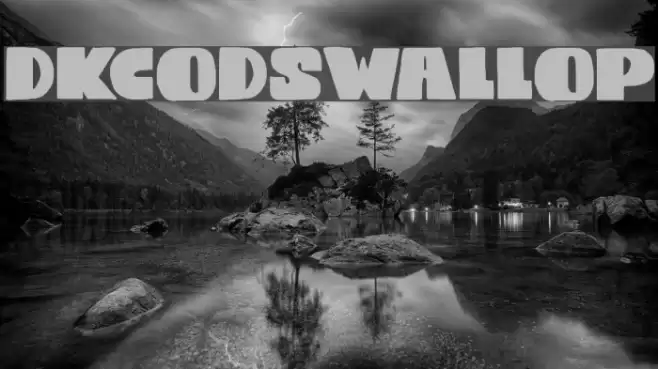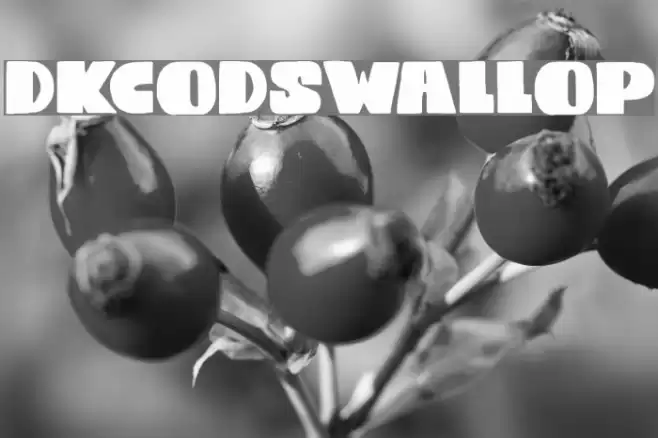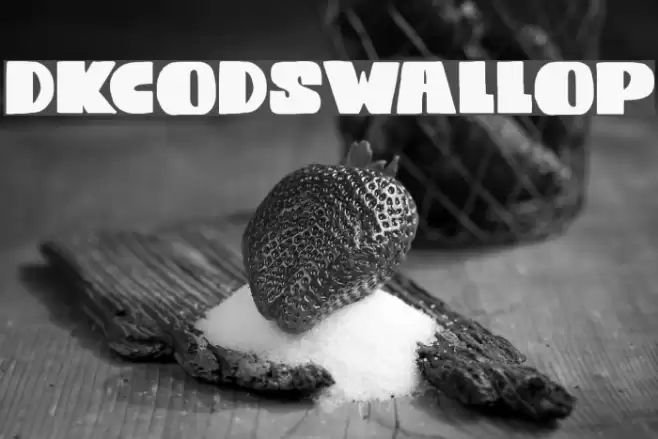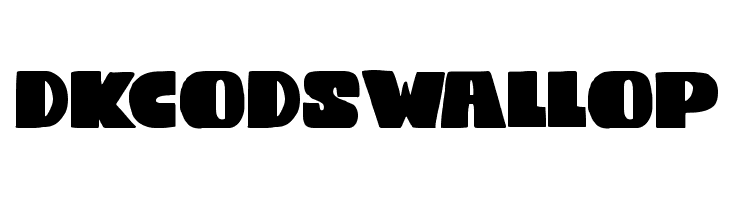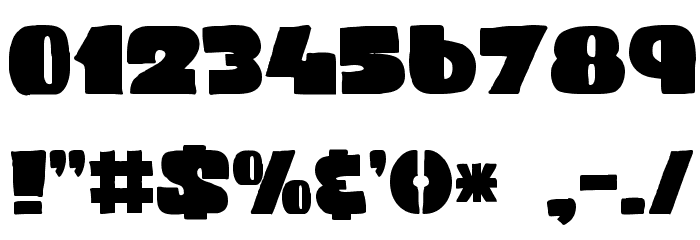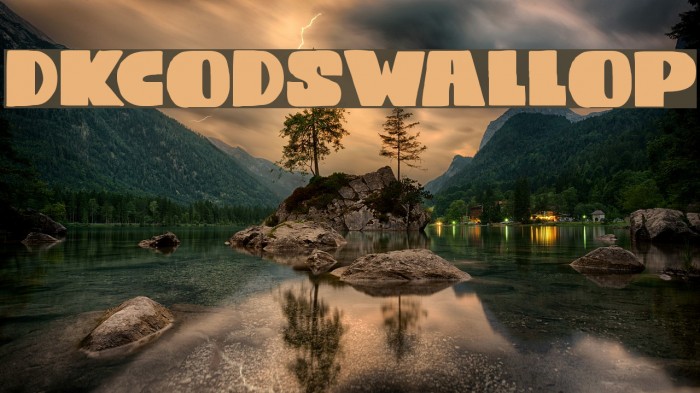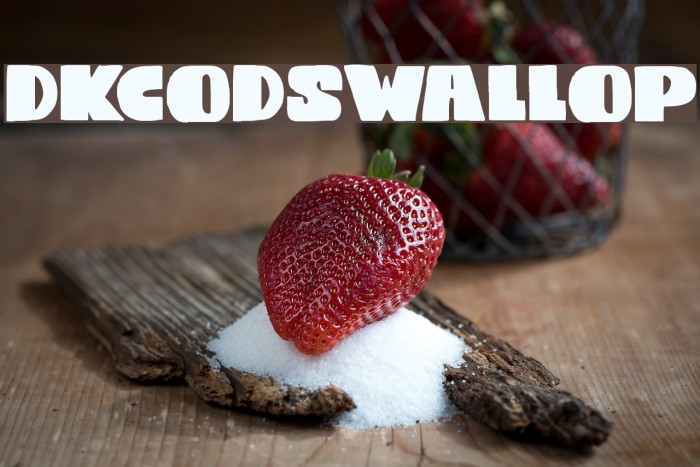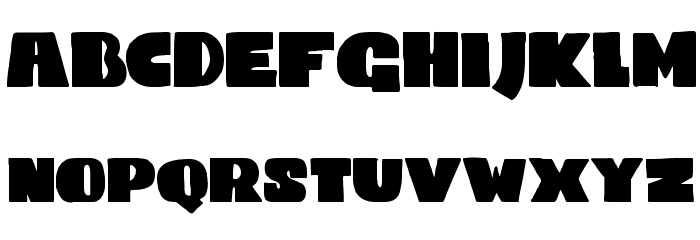
DKCodswallop Font
DKCodswallop Description
This font features a bold and playful design with a chunky, block-like appearance. The characters are heavily weighted, giving them a strong presence on the page. Each letter has a unique, slightly irregular shape, adding a whimsical and informal touch to the overall style. The font's boldness makes it stand out, while the quirky design elements give it a fun and approachable feel. The numbers and special characters maintain the same bold and playful aesthetic, ensuring consistency across all elements. This font is ideal for projects that require a strong visual impact with a touch of humor and creativity.
A bold, playful font with chunky, irregular shapes and a whimsical style from Fancy fonts.
- Proposed Projects: Ideal for children's books, playful branding, posters, and creative advertising.
- Overall Style: Playful, Whimsical
- Use Case: Headlines, Posters, Branding